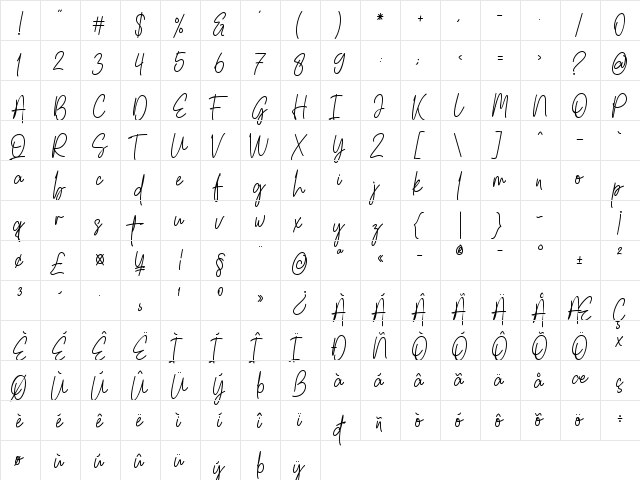
South Signature Regular
| Designer | Riyadh Rahman |
Design Context for South Signature Typeface
South Signature is a composed and adaptable typeface that performs quietly and consistently across a wide range of design contexts.